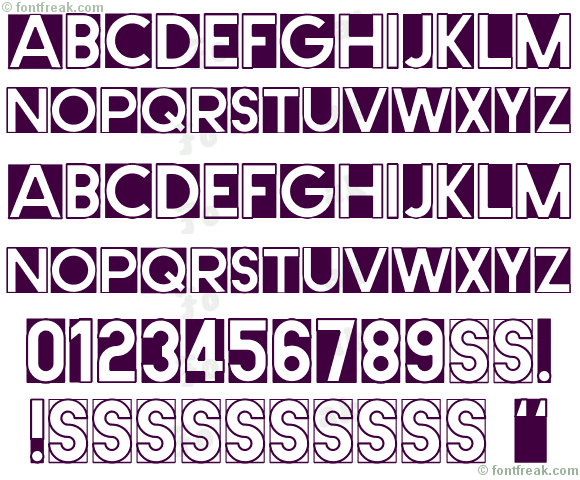
Cut Me Out
CutMeOut2
CutMeOut3
About Cut Me Out
The Cut Me Out font, designed by Peter Wiegel, is a captivating display typeface that stands out with its unique and playful character. This font belongs to the decorative category, showcasing a distinctive cut-out design that adds a layer of creativity and visual interest to any project. Its bold stroke weight and uniform spacing create a striking impact, making it an excellent choice for eye-catching headlines or signage.
Visually, the Cut Me Out font features crisp edges and a modern aesthetic, with each letter carefully crafted to convey a sense of whimsy and fun. This font's design is particularly well-suited for a variety of applications, including wedding invitations that aim for a contemporary twist, vibrant movie posters that demand attention, and trendy restaurant menus that enhance the dining experience. Additionally, it can be effectively used in promotional materials for events, giving them a fresh and engaging look.
The target audience for the Cut Me Out font includes graphic designers looking for unique typefaces to enhance their projects, small business owners who want to make a memorable impression with their branding, and content creators seeking to add an artistic flair to their digital content. This font not only captures attention but also invites interaction, making it an ideal choice for a wide range of creative endeavors.